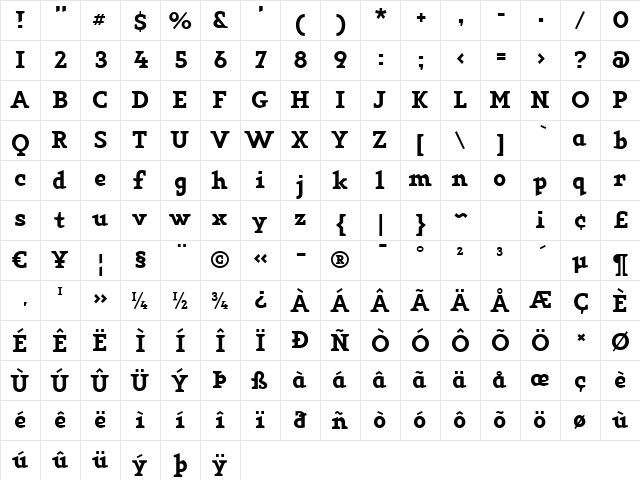
KeyMediumLiningNumbers Regular
Design Context for KeyMediumLiningNumbers Typeface
KeyMediumLiningNumbers offers clean, dependable letterforms without strong stylistic allegiance, making it a practical choice for designers who need flexibility.
Pro Tip: Pair KeyMediumLiningNumbers with a font of contrasting weight or personality to build a more expressive typographic hierarchy.